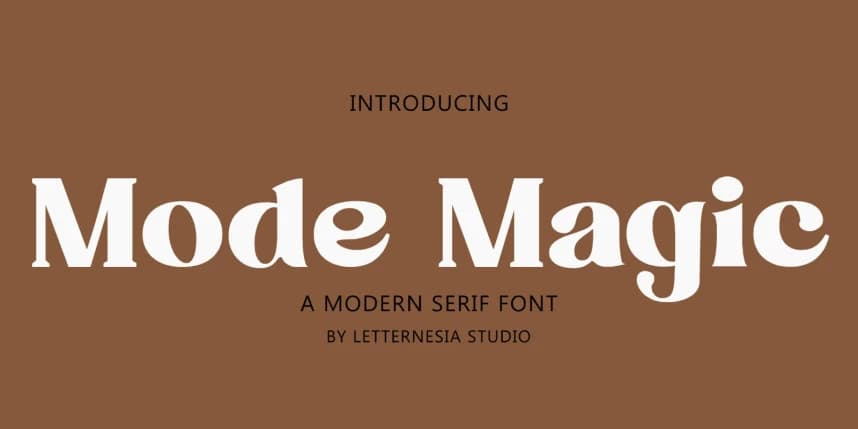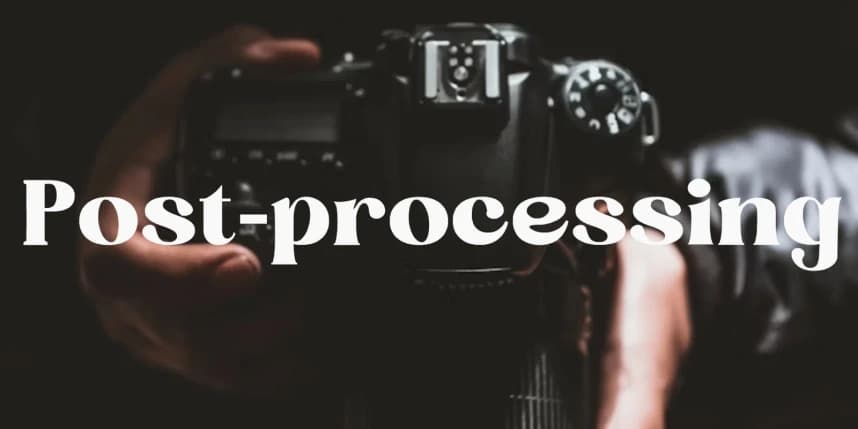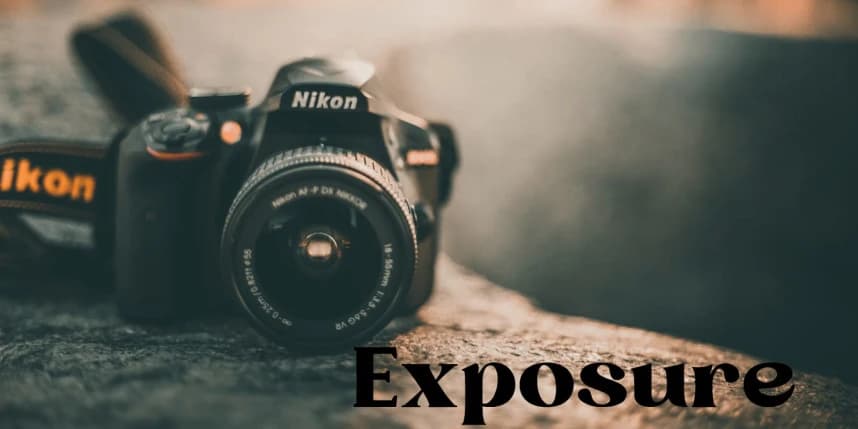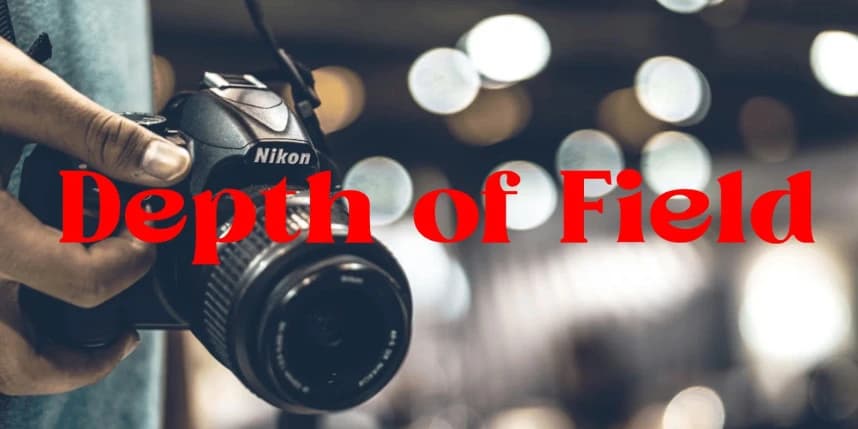
Mode Megic Font
Mode Magic Font is a modern futuristic font that blends elements of elegance, uniqueness, and a subtle touch of fantasy. It's perfect for designs that aim to be bold, quirky, and full of visual character.